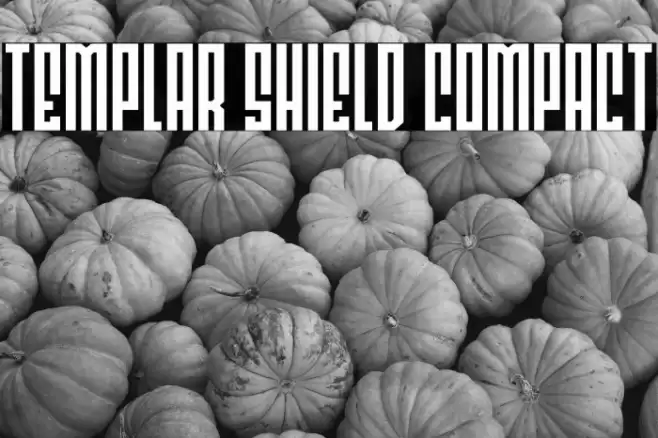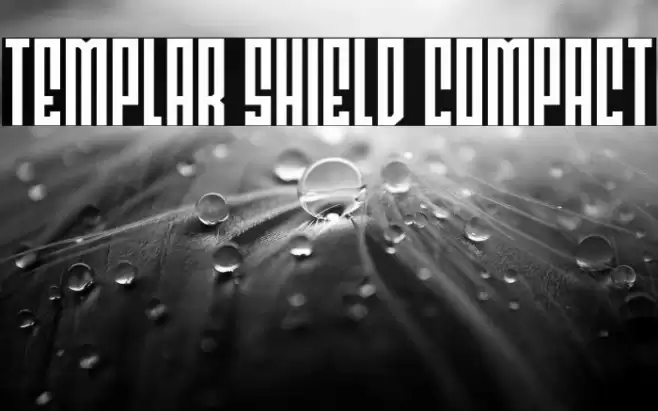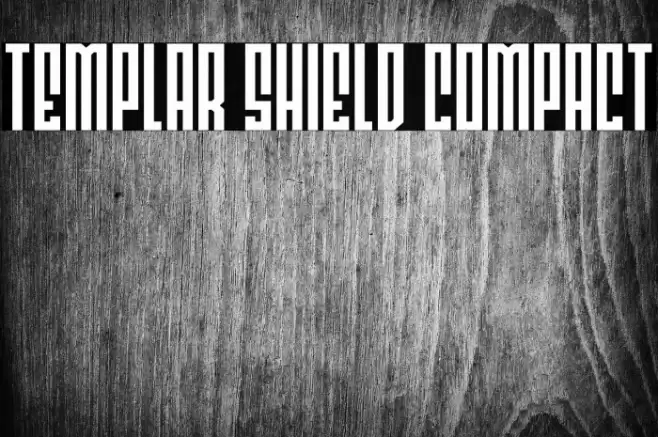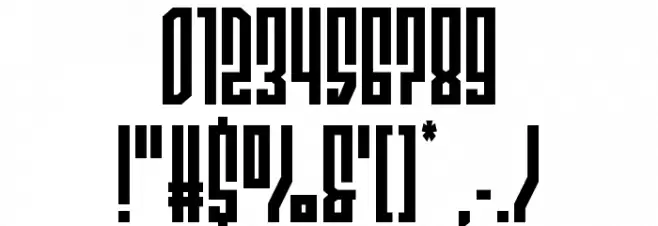
Templar Shield Compact Font
Templar Shield Compact Description
This font features a bold and compact design with a strong geometric structure. The characters are tall and narrow, creating a striking and imposing appearance. The angular edges and uniform stroke widths give it a modern and futuristic feel, while the condensed form enhances its visual impact. The uppercase and lowercase letters maintain a consistent height, contributing to its cohesive look. The numerals and special characters follow the same design principles, ensuring uniformity across the typeface.
A bold, geometric, and compact font with a modern, futuristic style from Regular fonts.
- Proposed Projects: Ideal for branding, posters, and headlines where a strong visual impact is desired.
- Character Spacing: Tight